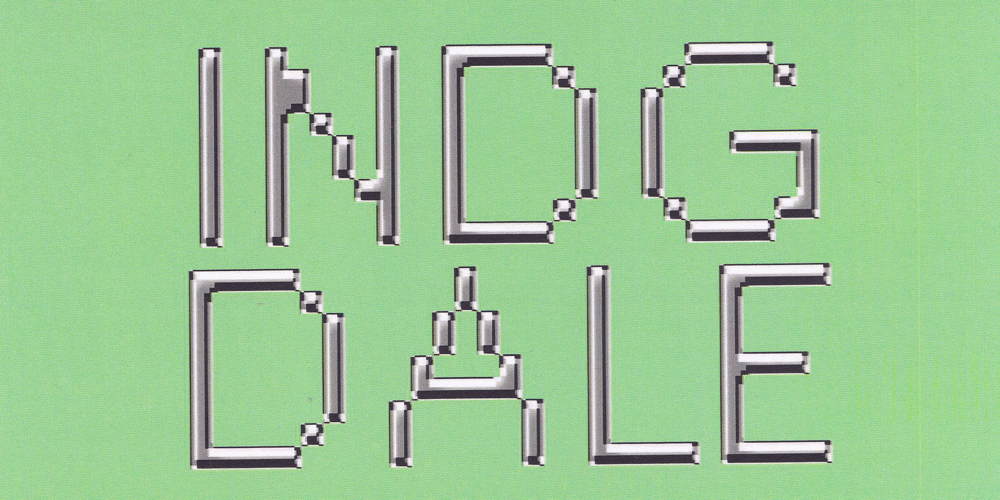
INDG Dale Font Family was designed by Iñigo Uriarte and published by Iñigo Uriarte. INDG Dale contains 3 styles and family package options. “Every day, once a day, give yourself a present.”A design exploration for the ultimate bitmap face, an Helvetica for an era aspiring to modesty.As expressive as simple, ever legible. Made to convey only truth, its good employment lies now in your hands. Arrange thousands of glyphs to form bodies of text, or distort a few words for attention catching titles.More than 100 languages can now enjoy some of the finest pixel compositions out there. The most exquisites from yours truly, at least.And our brothers of Greece and Ukraine wiil not be left overlooked.Poetry in pixels, that is the dream of Dale.